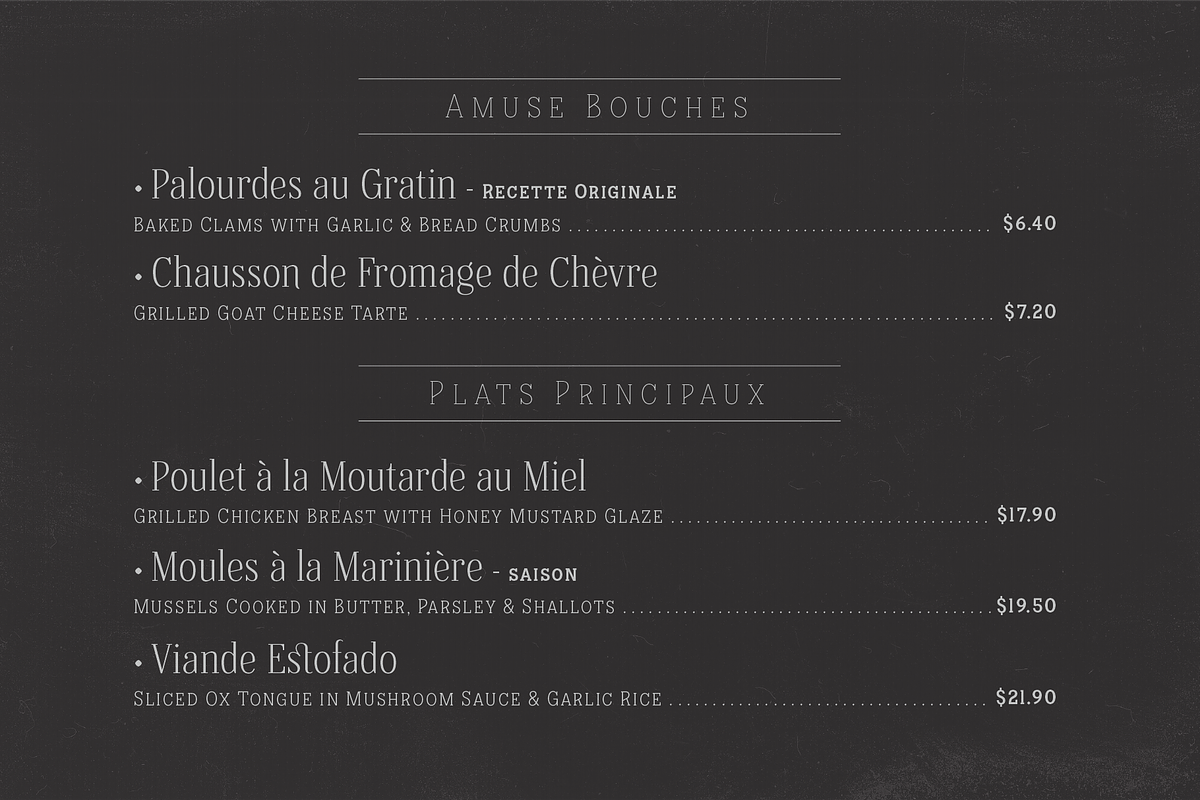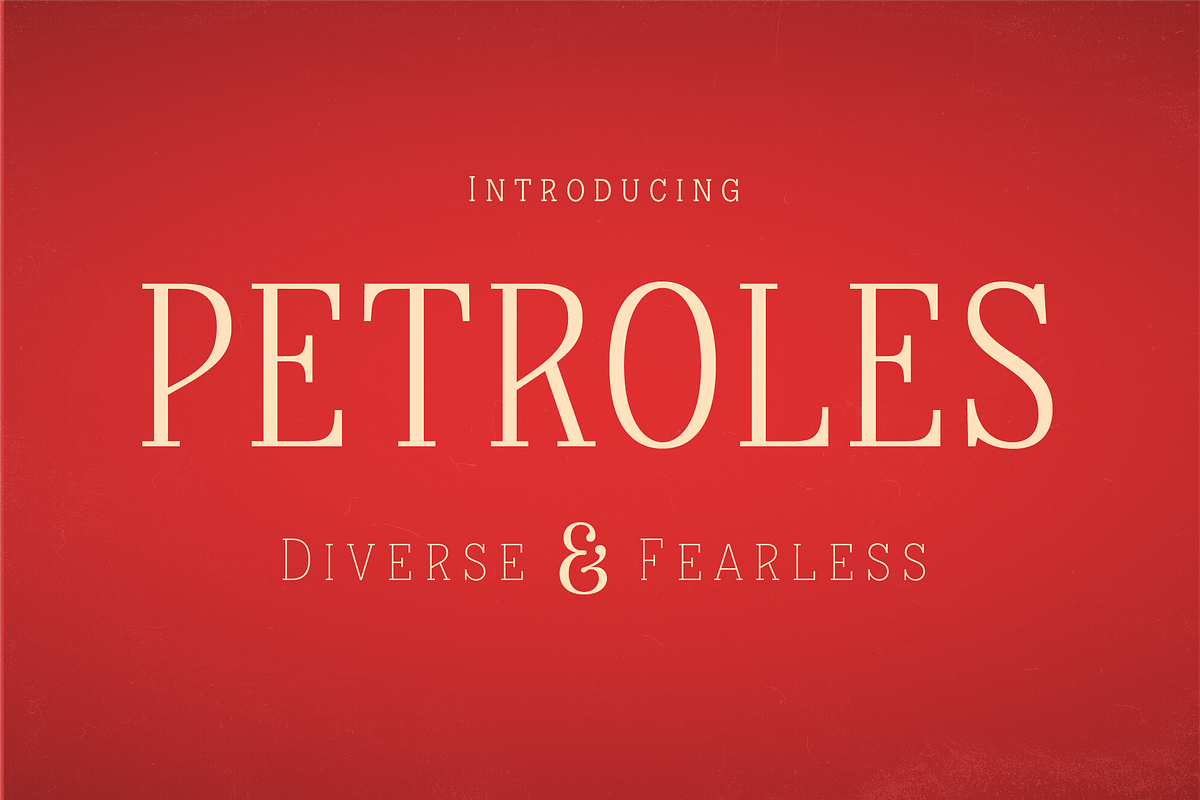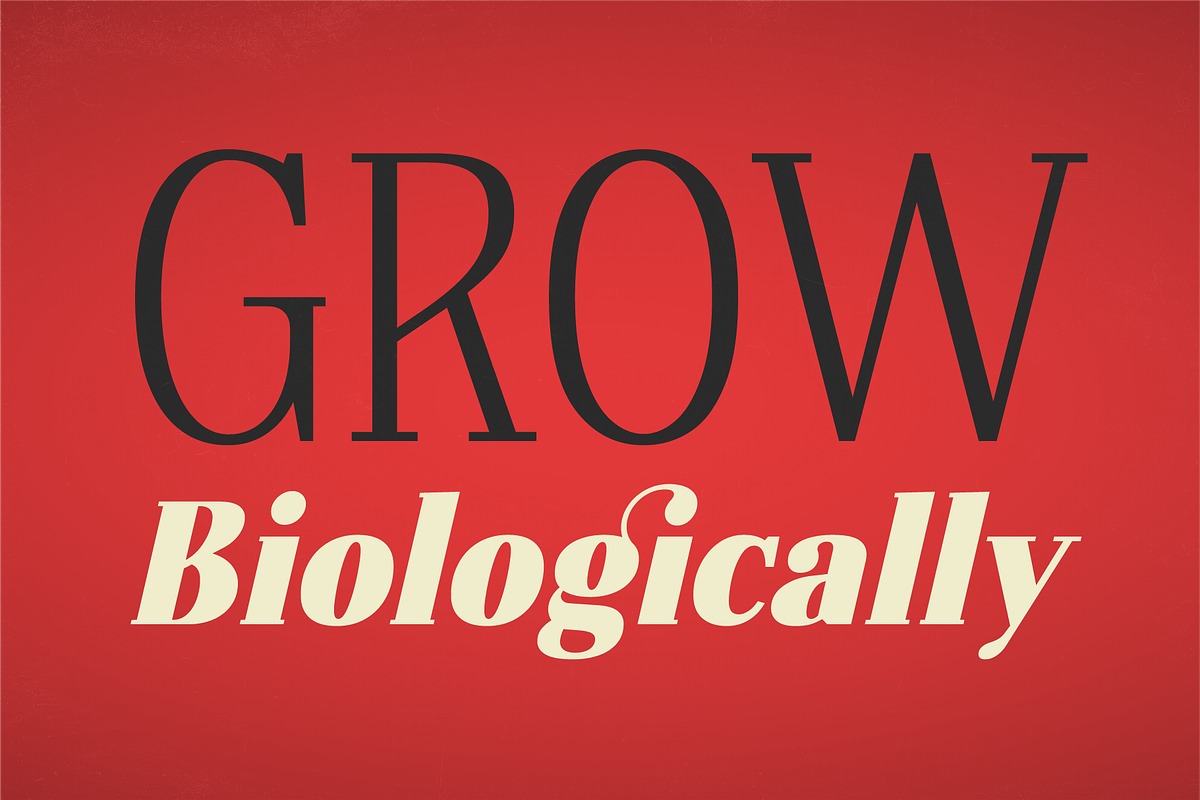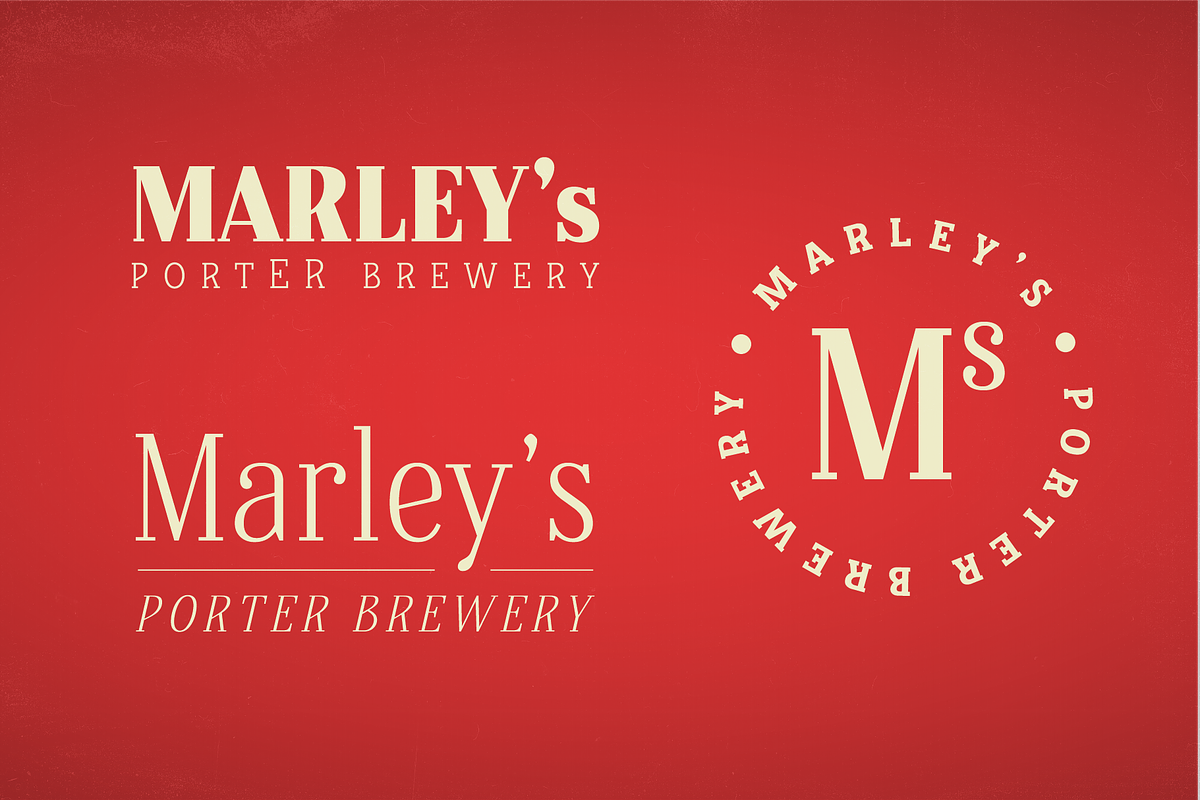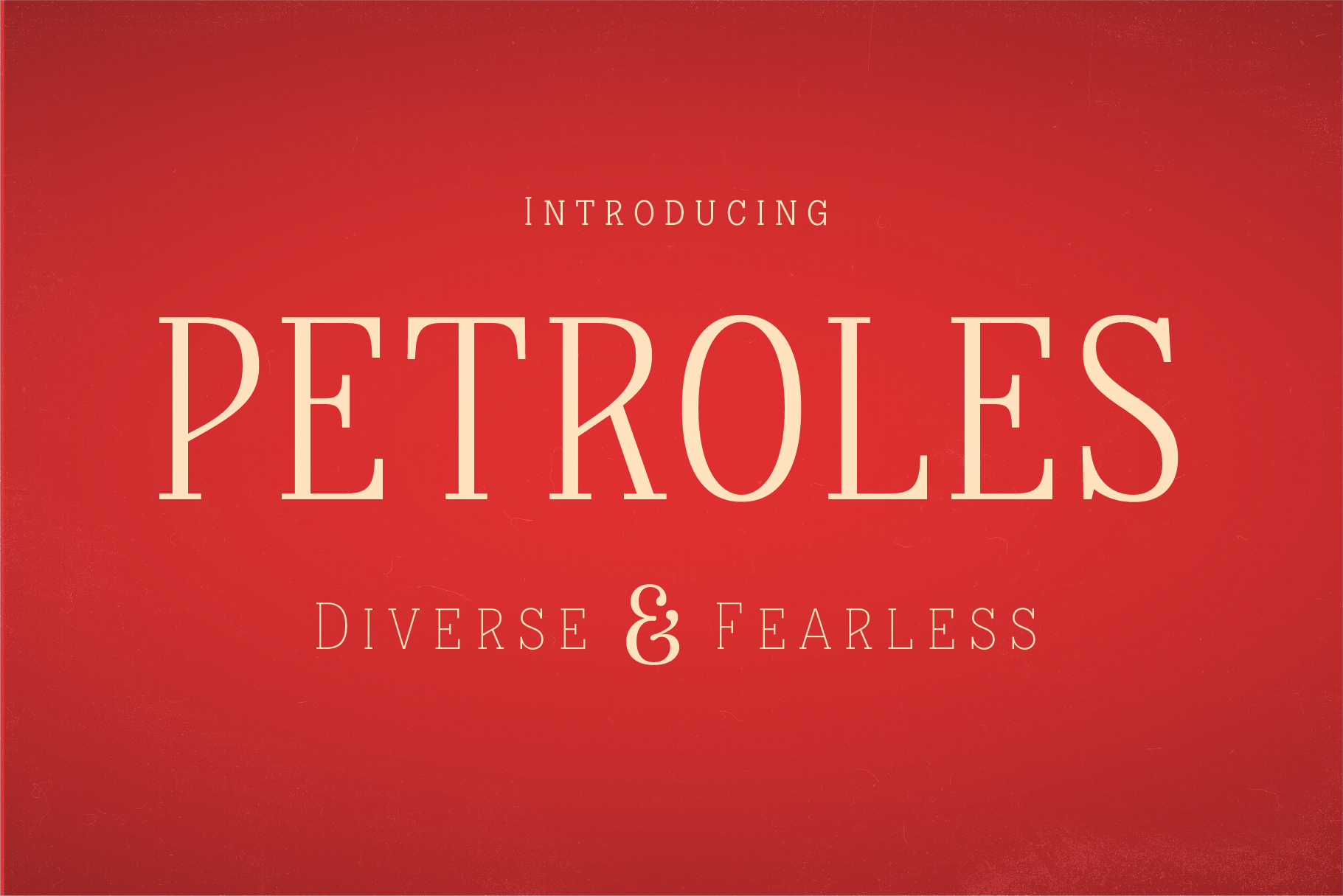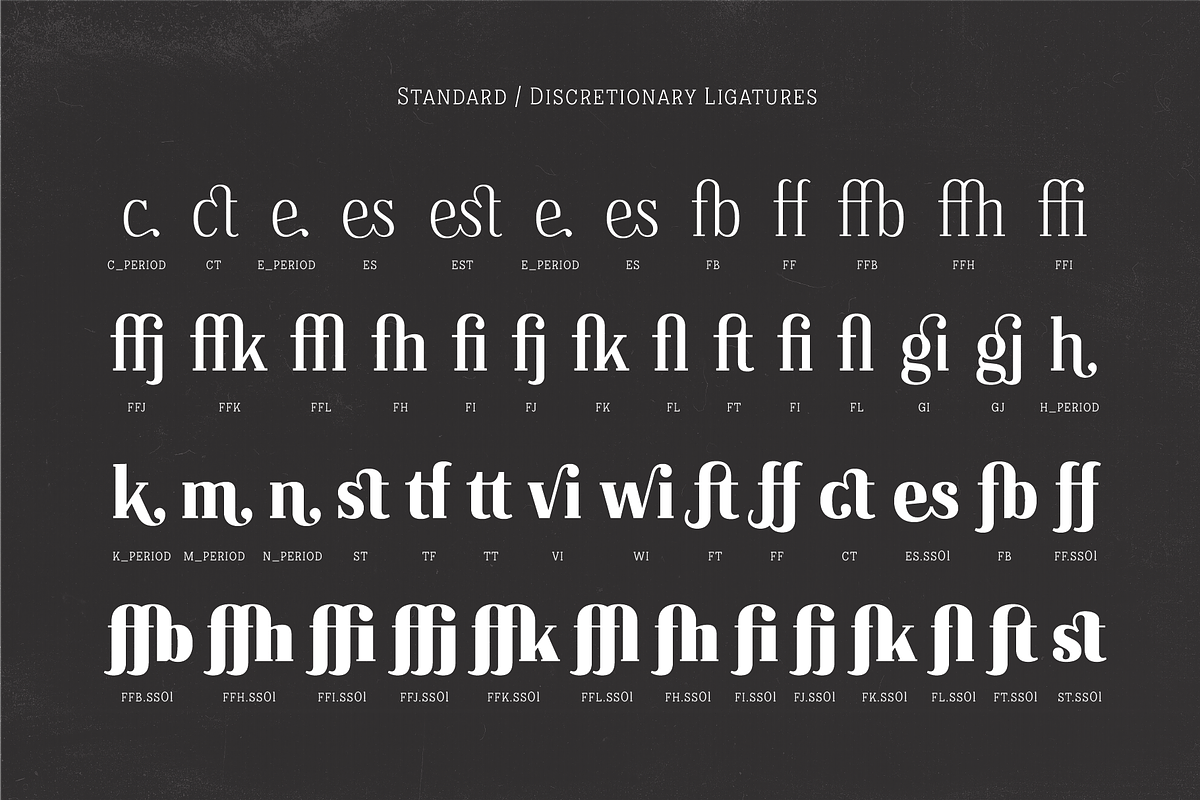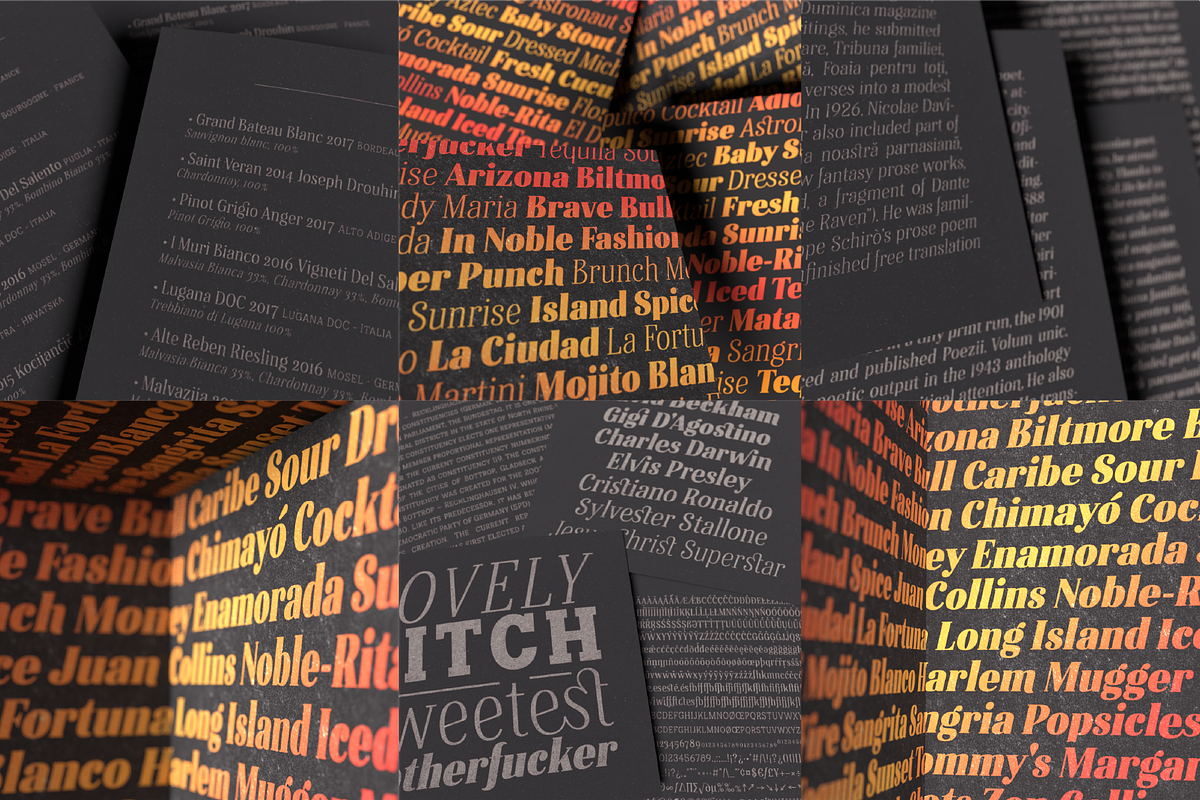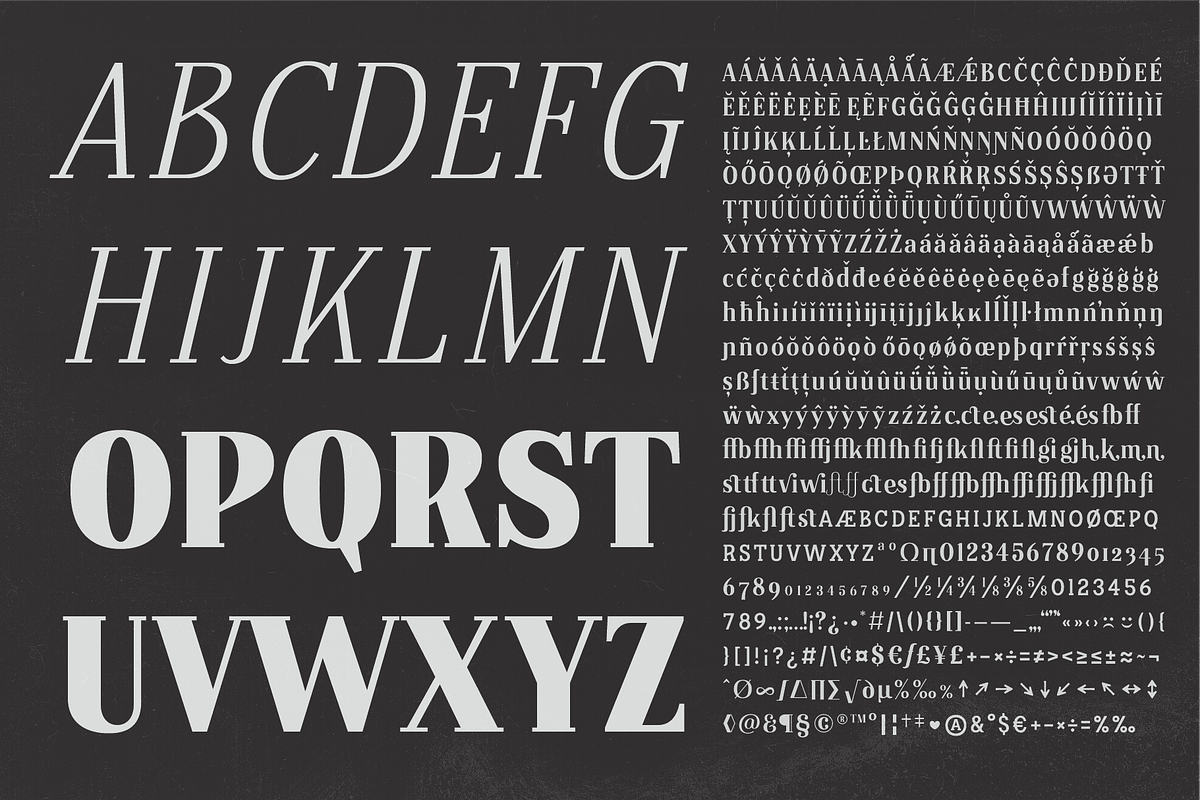
Petroles - Font Family
Petroles was designed to transform from an elegant lightweight into a funky heavyweight to create a more casual attitude, giving it the ability to perform in all sorts of designs, coming with several OTF features to adjust it to your likings. Each weight has a complimenting set of almost monoweight small caps to easily bring contrast & variation. 7 upright & 7 slanted fonts!